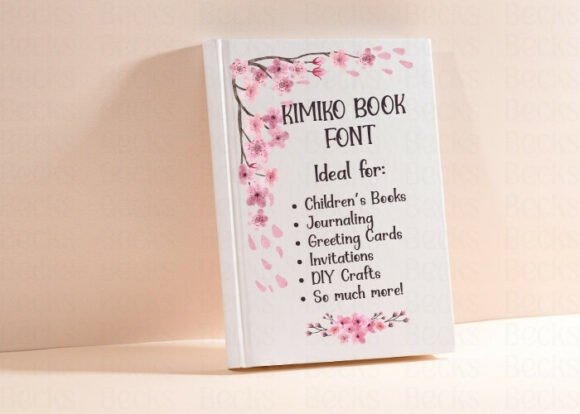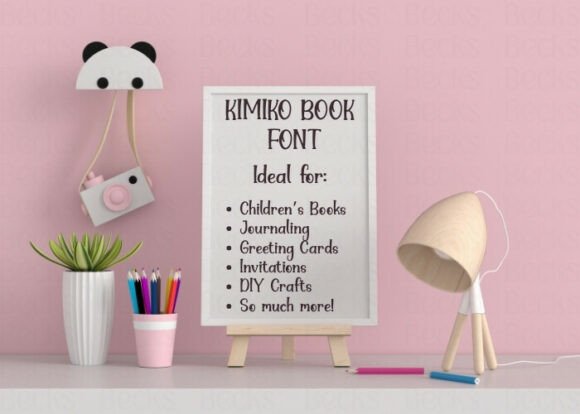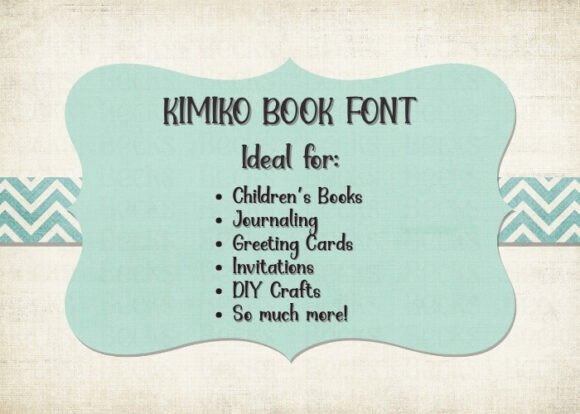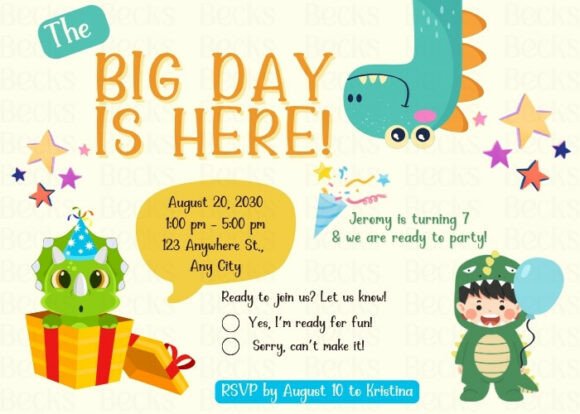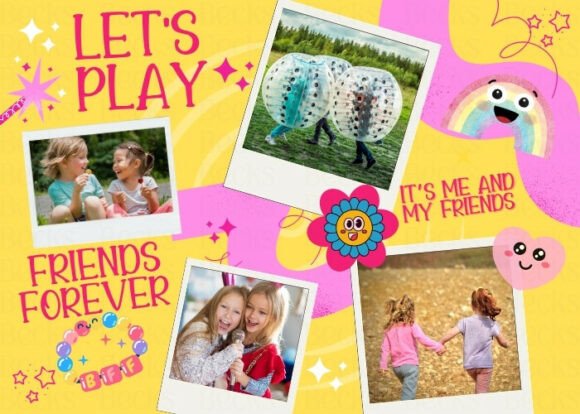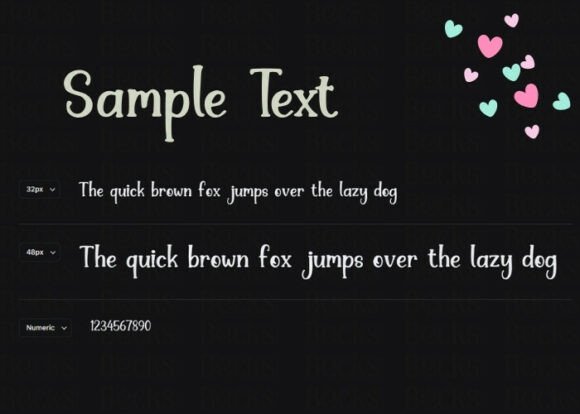
Introduction to Kimiko Font
Have you ever sat with a pen in hand, waiting for inspiration to strike? The scratch of the nib on paper, the flow of ideas, and the thrill of bringing a story to life – it’s a moment that many creatives cherish. And what if you could capture that magic on your digital canvas, too? Enter Kimiko Font, a whimsical handwritten font that brings the warmth of pen-on-paper to your digital projects.
As a designer, you’re constantly on the lookout for high-quality design resources that can elevate your creative projects. Kimiko Font is a valuable addition to your toolkit, offering a free download that’s perfect for a range of applications – from children’s books and greeting cards to branding and scrapbooking. With its playful curves and gentle rhythm, this font adds a personal touch to any project, making it a must-have for designers who crave unique and creative solutions.
Whether you’re working on a design project or simply want to add some personality to your digital creations, Kimiko Font is an excellent choice. Its transparent background and charming aesthetic make it easy to use, and its free download means you can experiment with it without breaking the bank.
Key Features of Kimiko Font
- High-quality, hand-drawn design ideal for creative projects, including invitations, greeting cards, and social media graphics.
- Transparent background option, allowing for effortless background removal and customization.
- Unique, playful characters and glyphs that add a touch of whimsy to any design project.
- Resolution: 300 DPI, ensuring crisp and clear text display in various sizes and applications.
- Perfect for digital and print projects, including logos, branding materials, and marketing collateral.
Honest Review: Kimiko Font
As a designer, I’m always on the lookout for high-quality design resources to elevate my creative projects. Recently, I stumbled upon the Kimiko Font, and I must say, it’s been a game-changer.
- ✨ Elegant and sophisticated design aesthetic that adds a touch of Japanese flair to any project.
- ✨ High-quality font files that are crisp and clear, even at larger font sizes.
- ✨ Transparent background option that makes it easy to use with any background image or color.
- ⚠️ Limited character set, which may not be ideal for longer text-based projects.
- ⚠️ Not as versatile as some other fonts in terms of weight and style options.
Overall, I’m really impressed with the Kimiko Font. It’s a fantastic addition to any designer’s toolkit, and it’s completely free to download. If you’re looking for a high-quality font to add some visual interest to your design project, I highly recommend giving Kimiko Font a try.
Just be aware of its limitations, and you’ll be all set to create some amazing designs.
Tips for Getting the Most Out of Kimiko Font
To get the most out of the Kimiko Font, experiment with different font sizes, colors, and styles. You can also use it in combination with other design elements, such as images and graphics, to create a unique and eye-catching design.
The Kimiko Font is ideal for creative projects, such as blog posts, social media graphics, and presentations. It’s also great for branding and marketing materials, such as business cards and brochures.